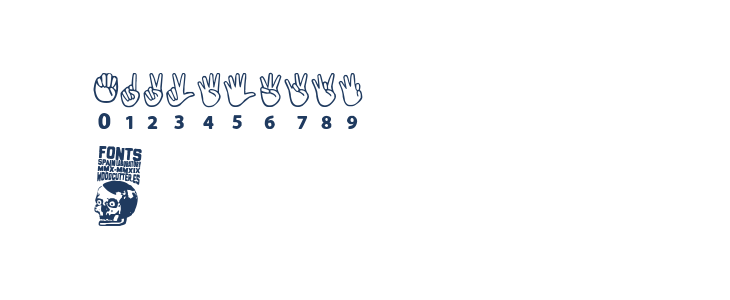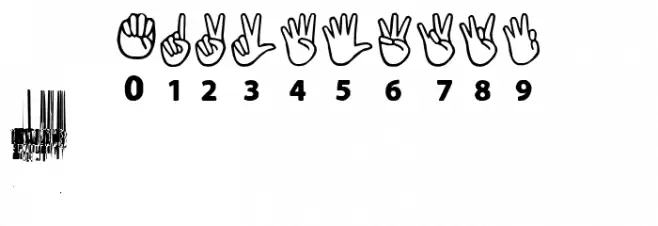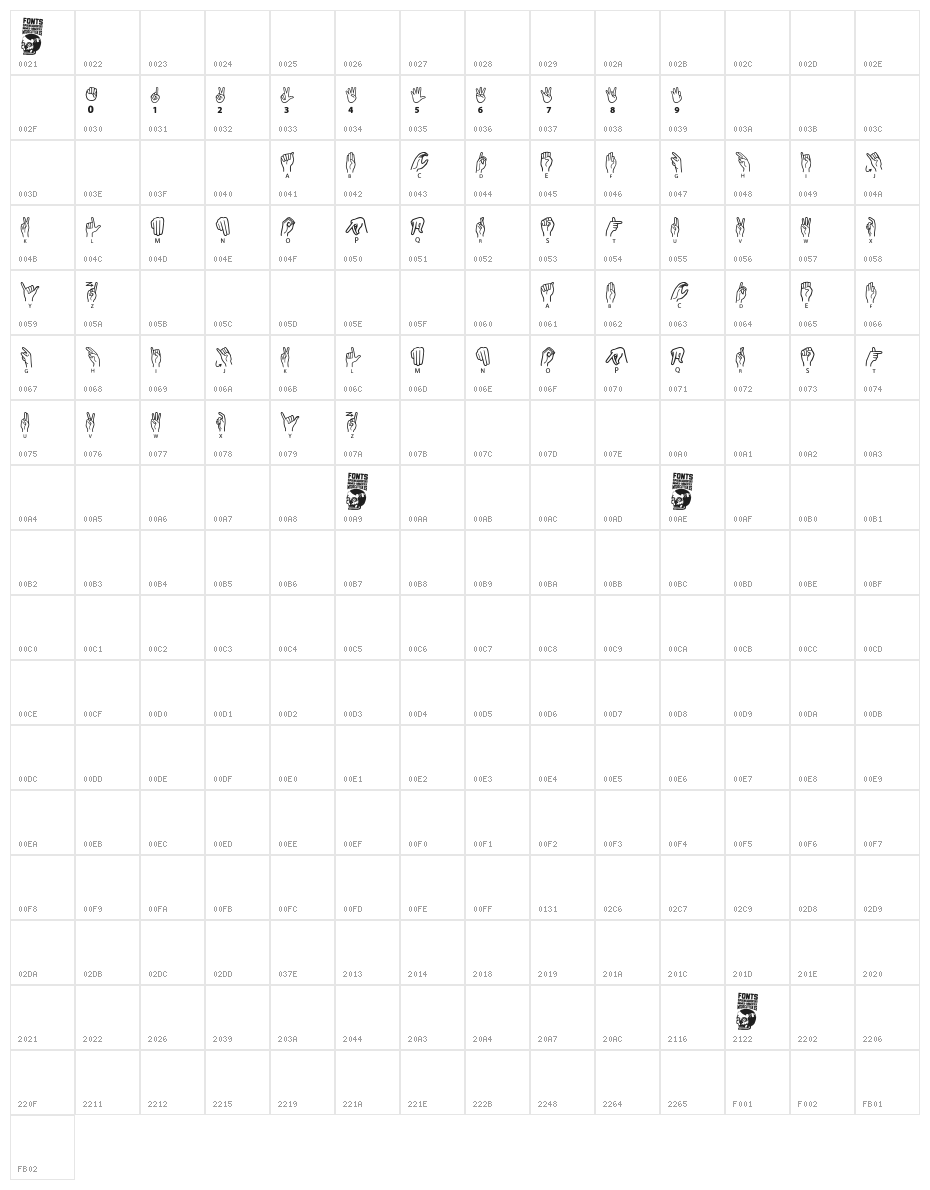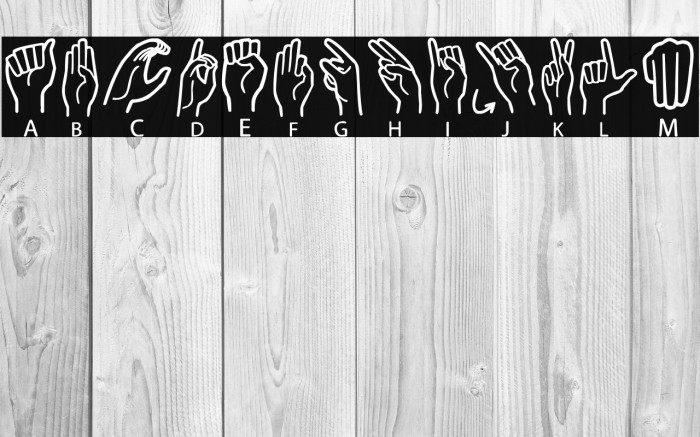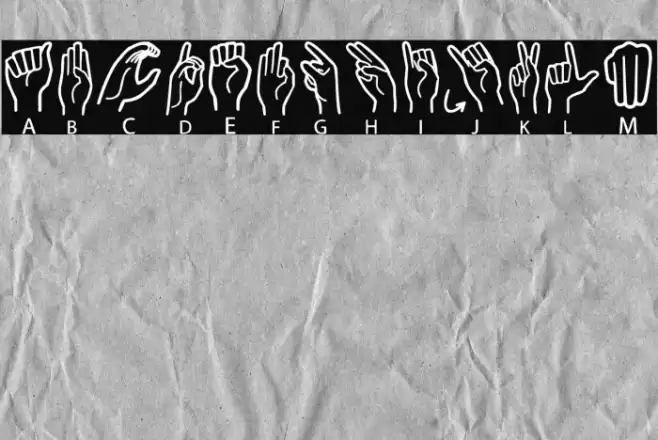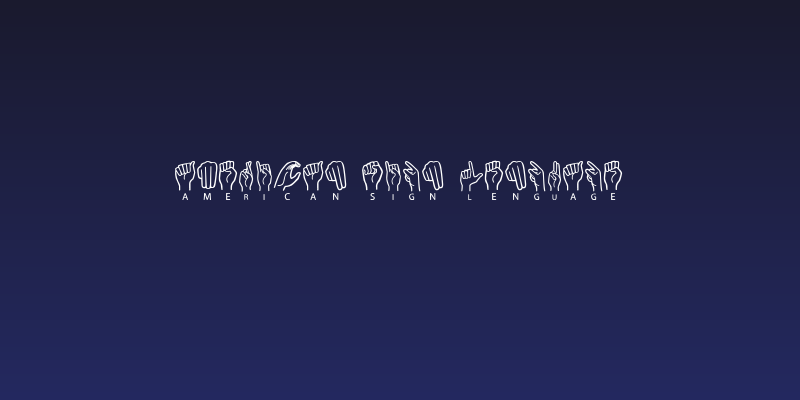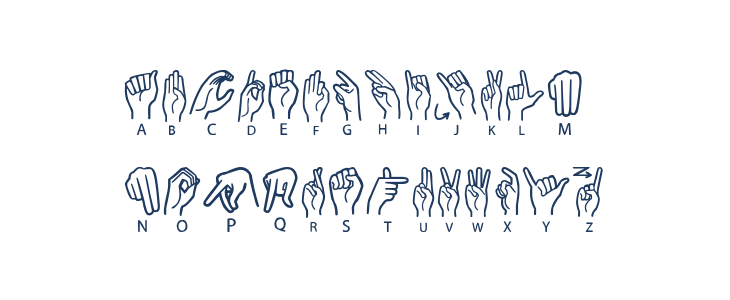
American Sign Lenguage Font
American Sign Lenguage Description
A decorative font consisting of illustrated hand signs representing the American Sign Language alphabet and numbers, with each character depicted as a unique hand gesture outlined in black.
| Overall Style | Decorative, Educational |
| Use Case | Posters, Educational charts, Infographics, Accessibility guides |
| Proposed Projects | Educational materials, accessibility resources, posters, infographics, learning aids for sign language. |